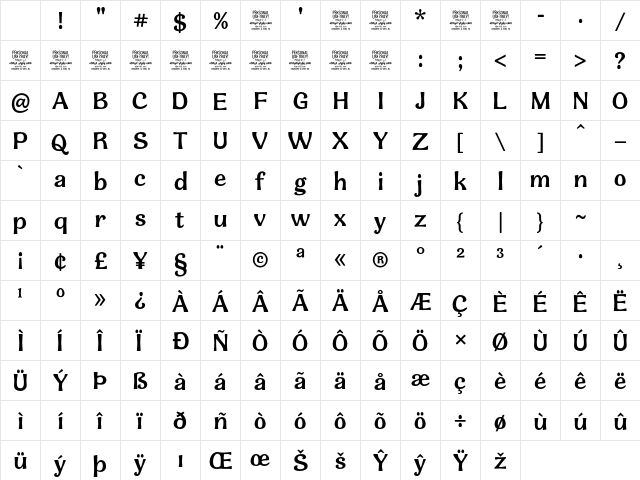
Complete Triorange - Personal Use Bold glyph index. Displaying only characters natively supported by Triorange - Personal Use Bold font.
Triorange - Personal Use is a composed and adaptable typeface that performs quietly and consistently across a wide range of design contexts. Its bold stroke weight gives it real presence on the page.